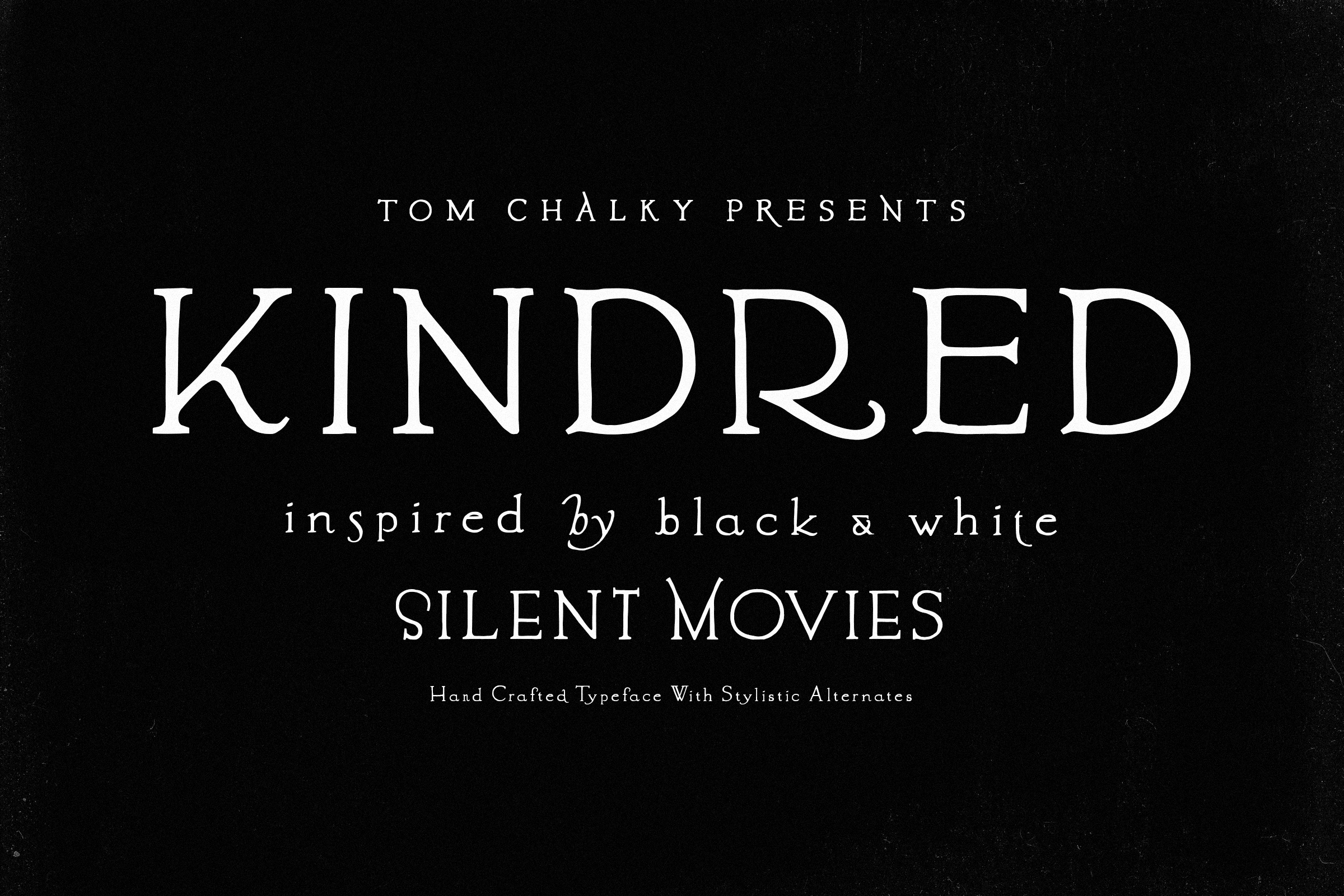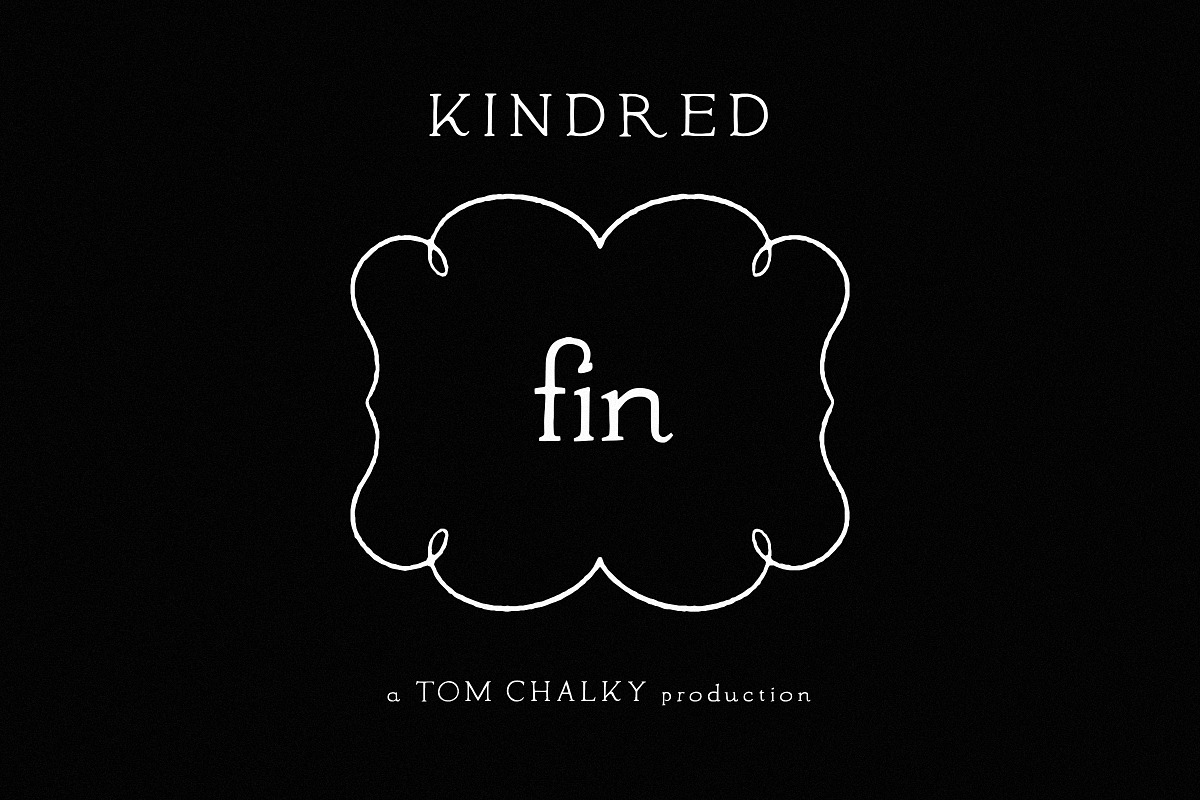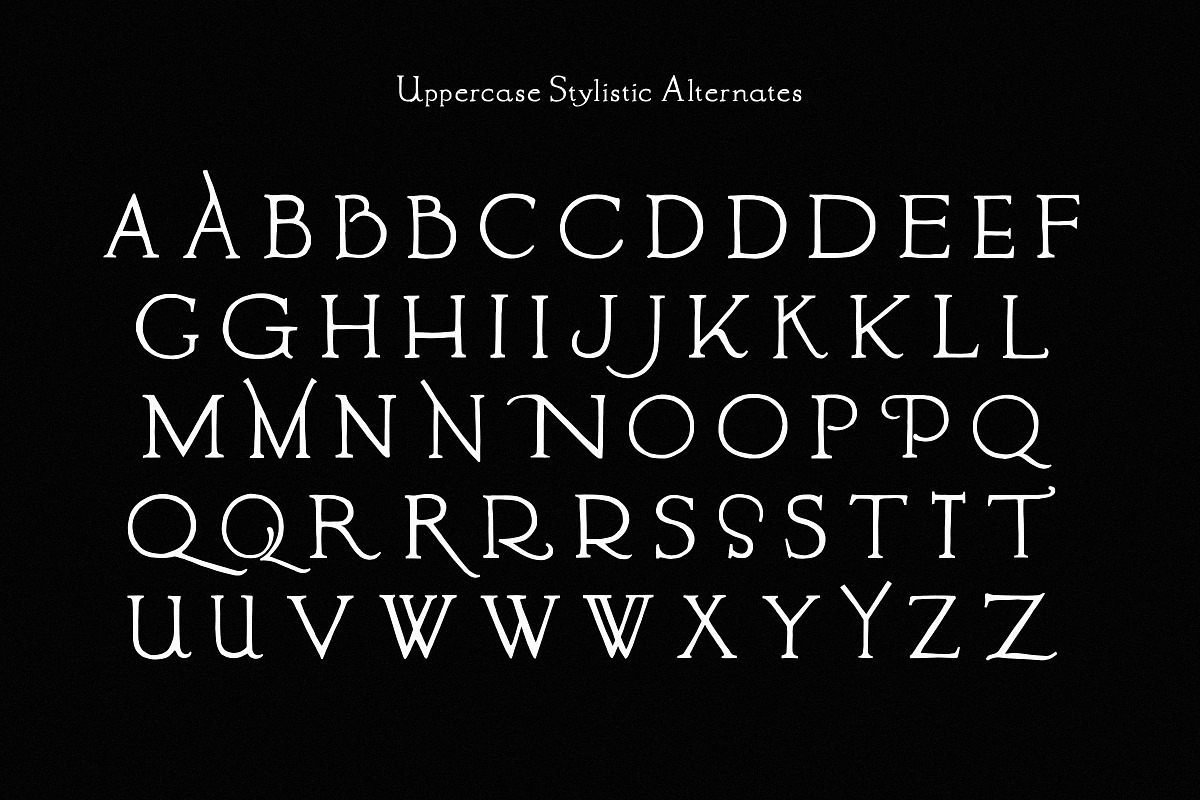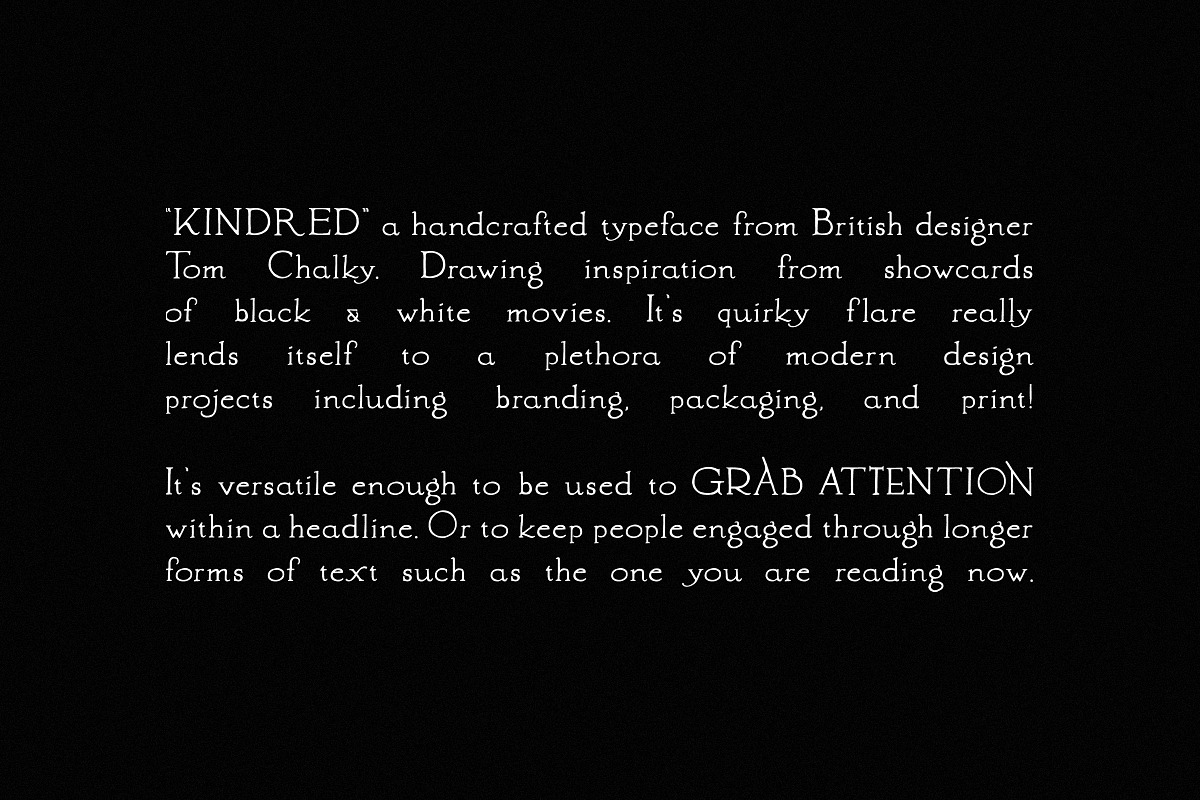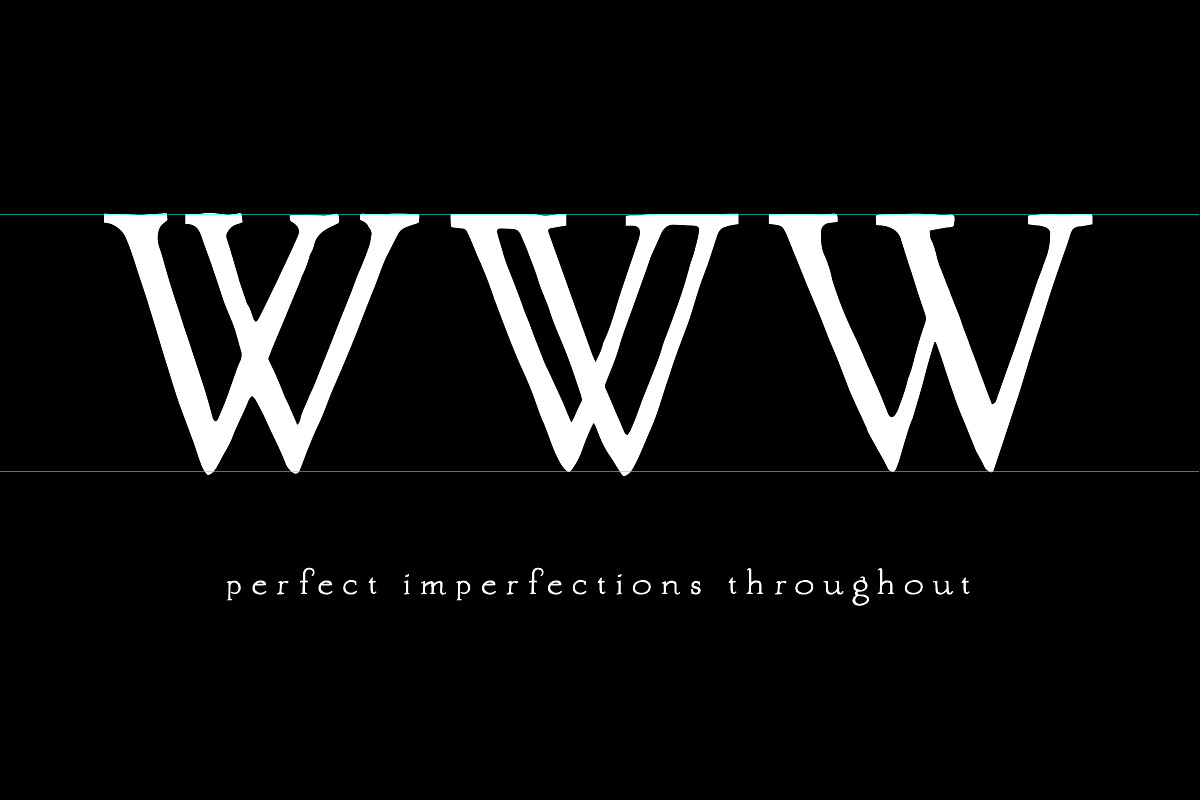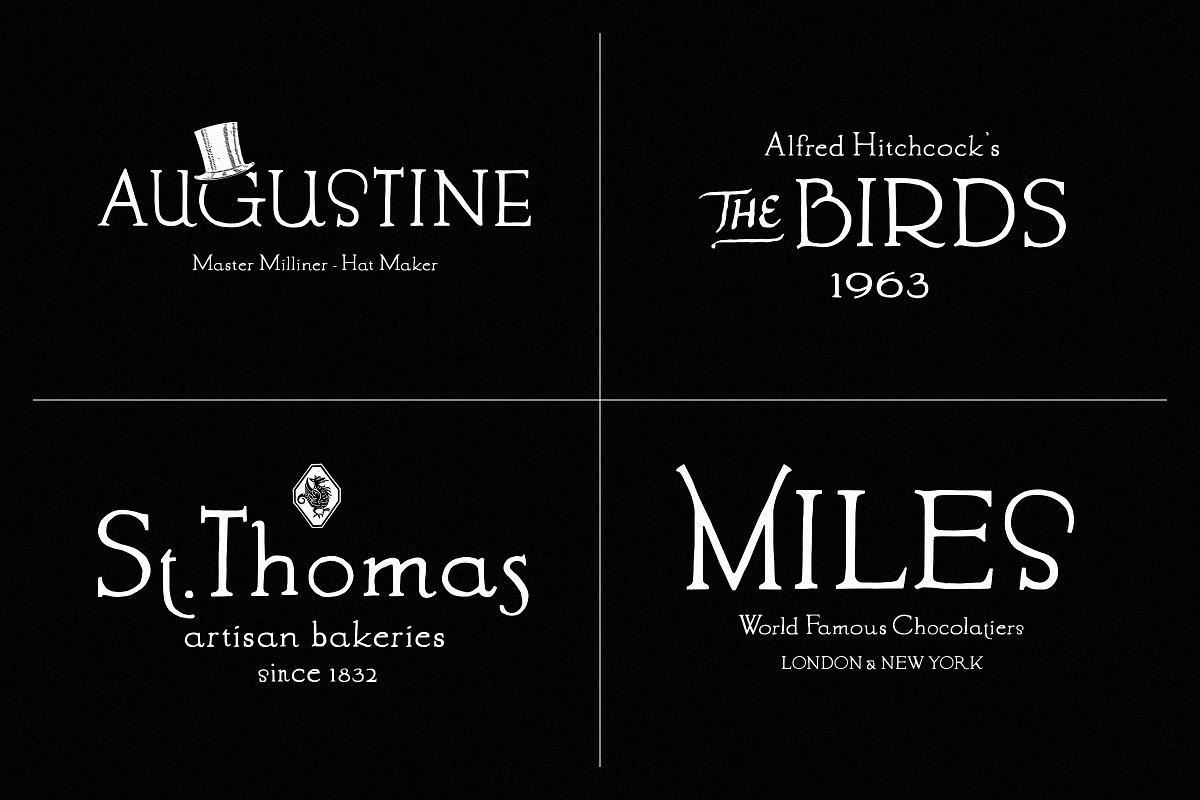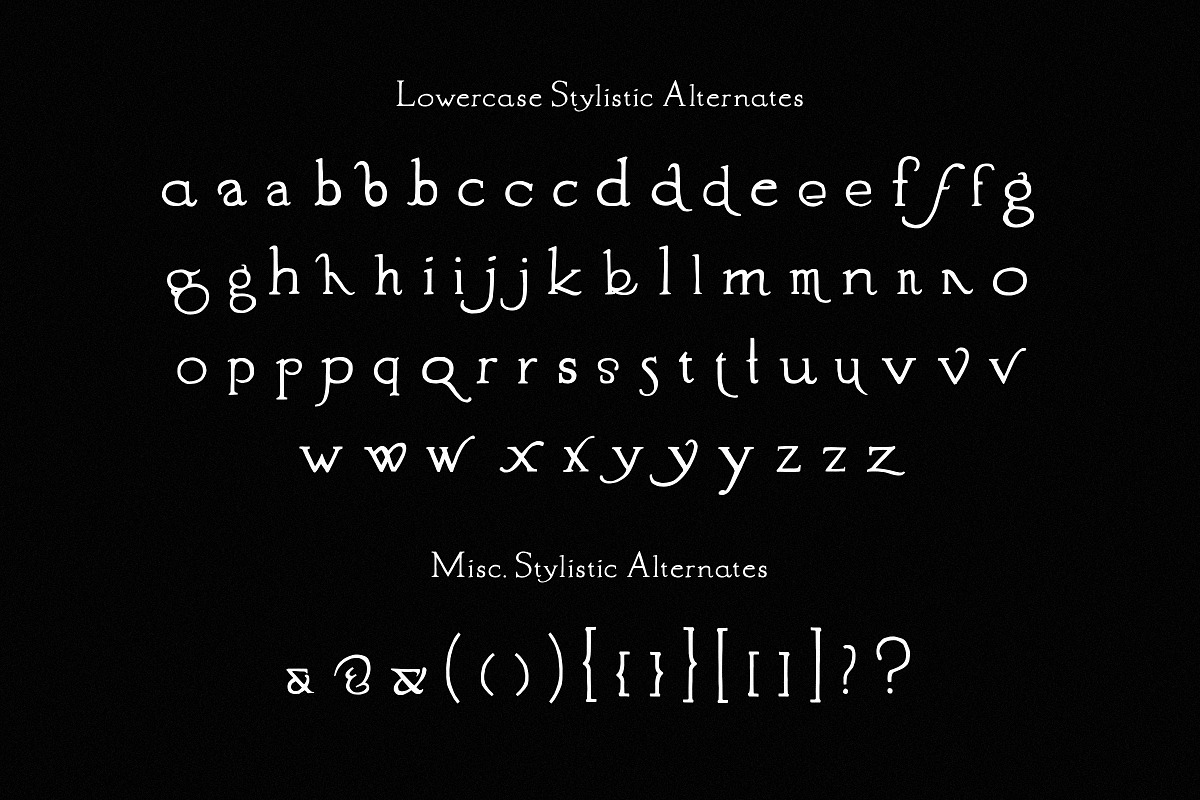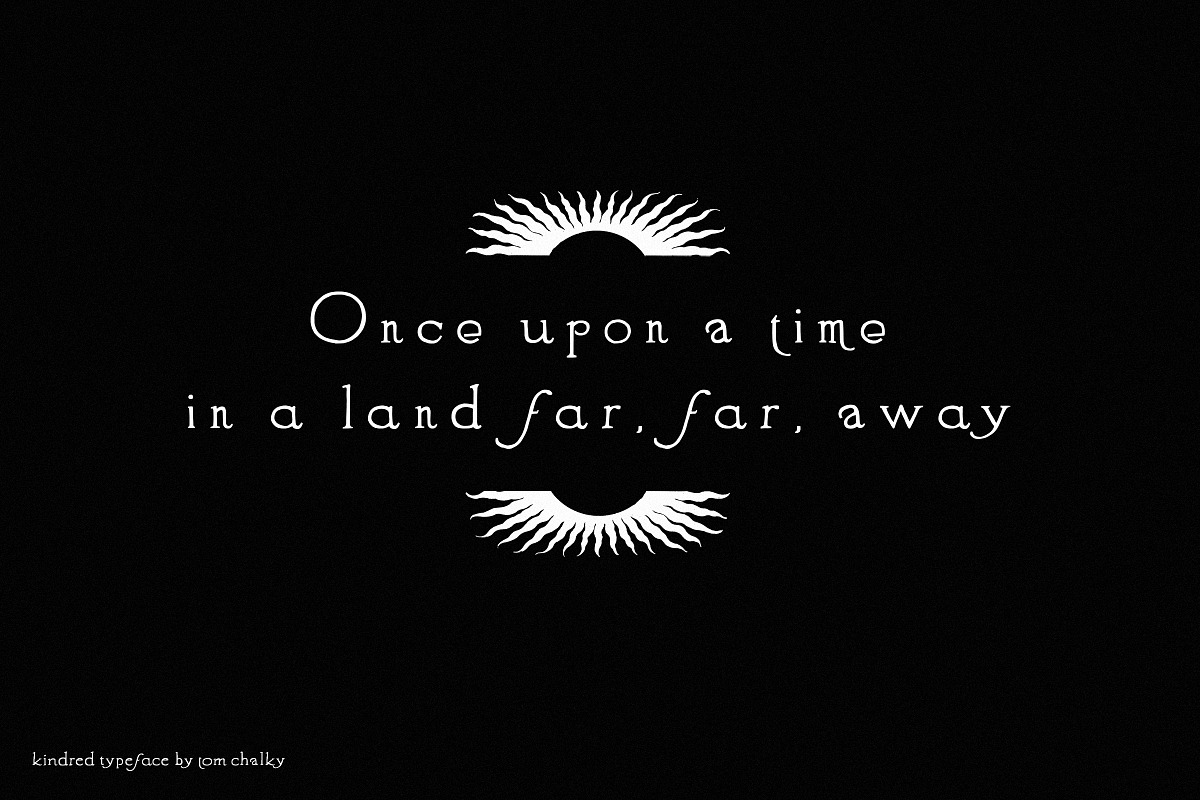
Kindred - Stylistic Alternates Font
Proudly introducing ‘Kindred’ A handcrafted, stylistic alternate typeface from Tom Chalky. Drawing inspiration from the showcards of old black and white movies, its quirky flare really lends itself to many modern design projects, including branding, packaging, print, and more!
Stylistic Alternates With plenty of alternative letters to choose from, Kindred offers a ton of creative potential for you and your project!